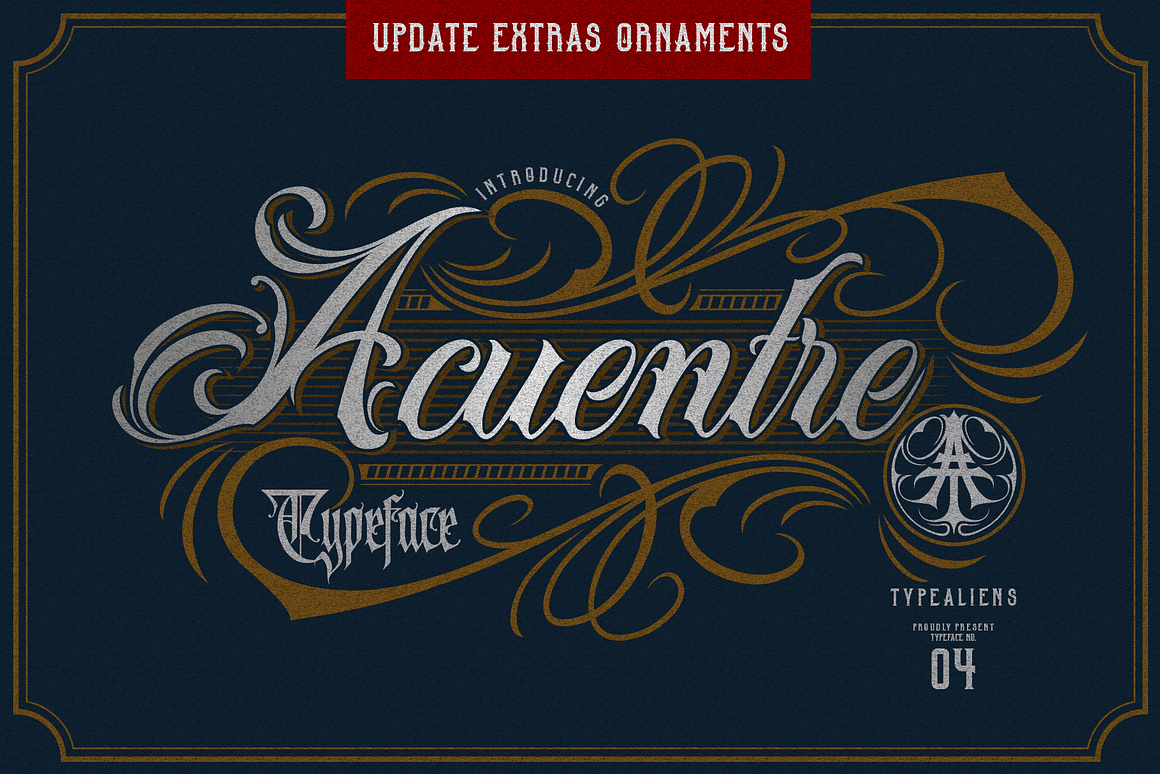
Acuentre Font
This distinctive typeface is perfect for cultural event branding, international festival materials, multicultural organization logos, global hospitality signage, diplomatic conference graphics, cross-cultural marketing campaigns, international education materials, and diverse community center designs. Acuentre Font delivers universal appeal in applications where cultural bridge-building and inclusive communication are essential for connecting diverse audiences and celebrating international collaboration.
What makes Acuentre Font so exciting is its masterful ability to transcend cultural boundaries while maintaining distinctive character and professional polish. The font features harmoniously balanced letterforms with subtle international influences that suggest global connectivity without favoring any particular cultural aesthetic. Each character has been thoughtfully designed to ensure exceptional readability across diverse cultural contexts while expressing openness and diplomatic sophistication. The typeface's inclusive personality creates immediate associations with cultural harmony and international cooperation, making it perfect for organizations that facilitate cross-cultural understanding and global collaboration.
The Acuentre Font includes versatile style variations: Regular, Bold, Light, and Condensed versions. This international collection provides designers with comprehensive tools to create culturally sensitive layouts and establish diplomatic typographic treatments that capture the essence of global unity. Each style maintains the font's inherent inclusivity while offering different emphasis levels for various multicultural applications and international design contexts.
Whether you're developing international organization identities, creating multicultural event materials, or designing global outreach campaigns, Acuentre Font Free Download offers the diplomatic aesthetic that resonates with diverse international audiences. Its universal appeal makes it particularly suitable for embassies, international NGOs, cultural centers, and global educational institutions. The font's harmonious presence ensures respectful communication across cultural boundaries in both print and digital applications, while its versatile design adapts beautifully to various cultural celebration themes and international collaboration contexts.
This inclusive typeface represents the perfect choice for designers who understand the power of culturally sensitive typography in fostering meaningful international connections and celebrating global diversity.